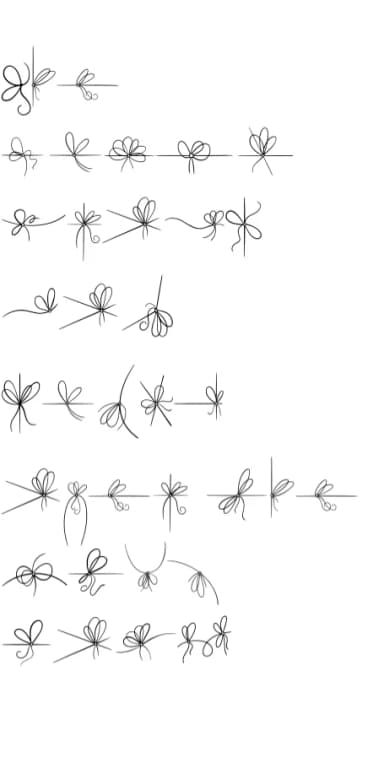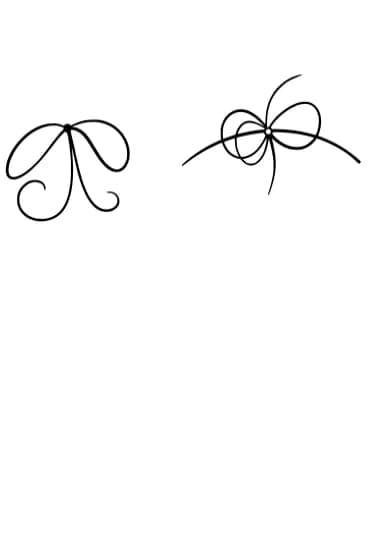
Line Bow by onoborgol is a hand-drawn dingbat collection built around rope knots, ribbons, bows, and decorative ties rendered as black vectors on a white background. The set includes a generous range of bow shapes and string elements in different styles, giving you multiple variations to layer and arrange within custom designs. Each glyph carries that sketched, organic quality that reads as intentional and human-made rather than mass-produced or computerized.
This collection works well for gift wrap projects, wedding stationery suites, labels for handmade skincare or small-batch artisanal goods, and packaging design for boutique brands. Florists and small craft sellers often reach for dingbat fonts like this to add visual personality to product labels, gift tags, and packaging without needing to swap typefaces constantly. You can pair it with a readable serif or sans-serif for body text, then layer Line Bow glyphs as accents, borders, corner flourishes, or decorative knots that echo the bow and twine theme throughout your layout.
Line Bow Font
by onoborgol